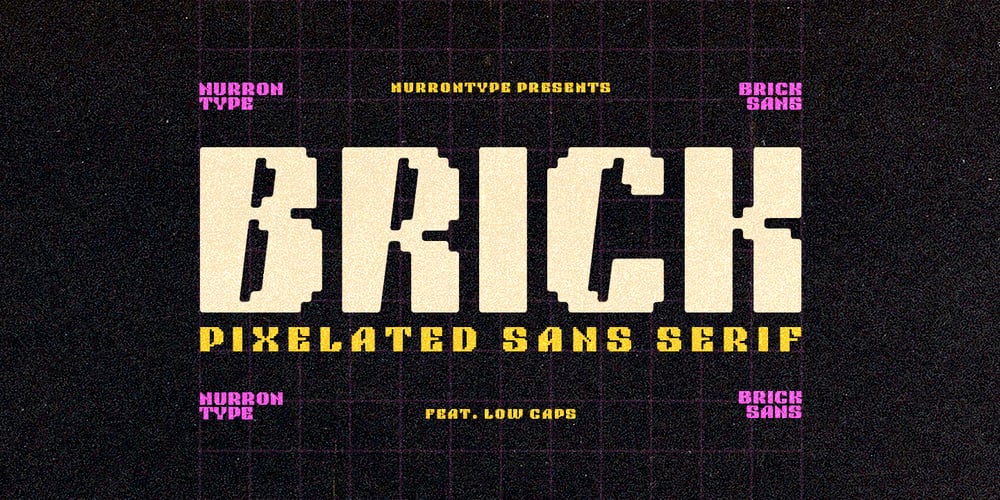
NT Brick Sans Font Family was designed by Nurron Shodiqin and published by Nurrontype. NT Brick Sans contains 1 styles and family package options. Back to the future! NT Brick Sans is a pixelated sans serif. Inspired by the Pixel Art phenomenon and Lego bricks, bringing back the good old 16-bit era with open-type features. It’s bold, soft rounded, supports multi-language, featuring low caps option. Brick Sans will make your project special. Grab it now.